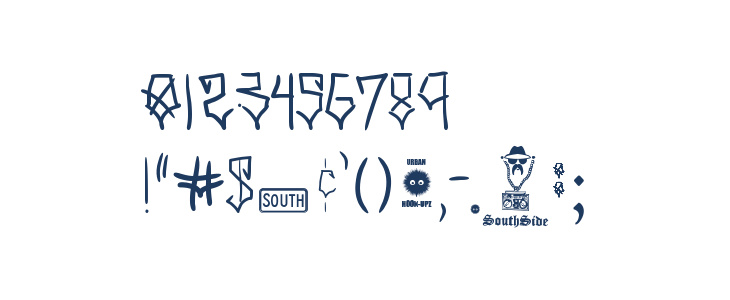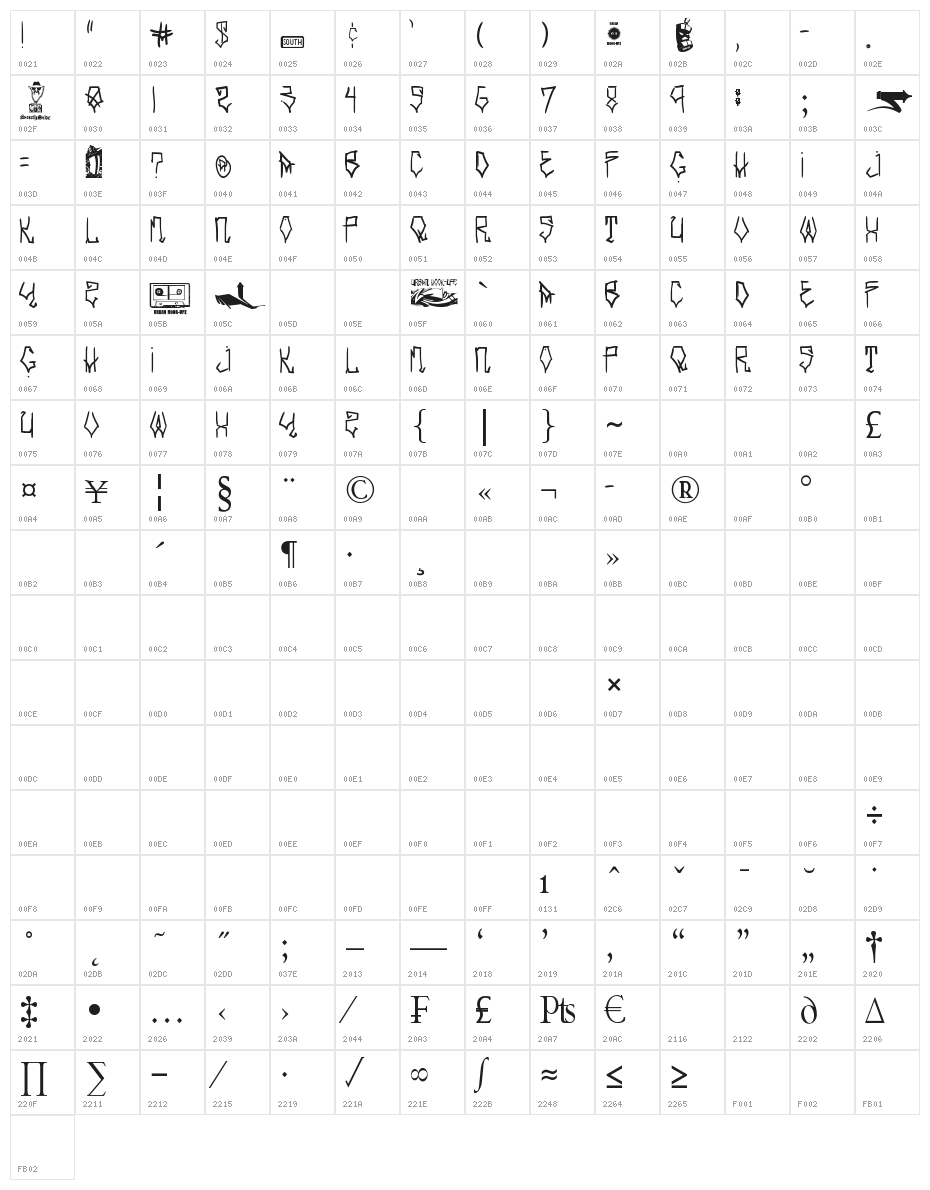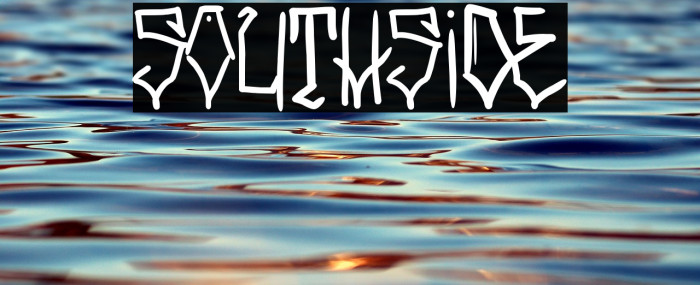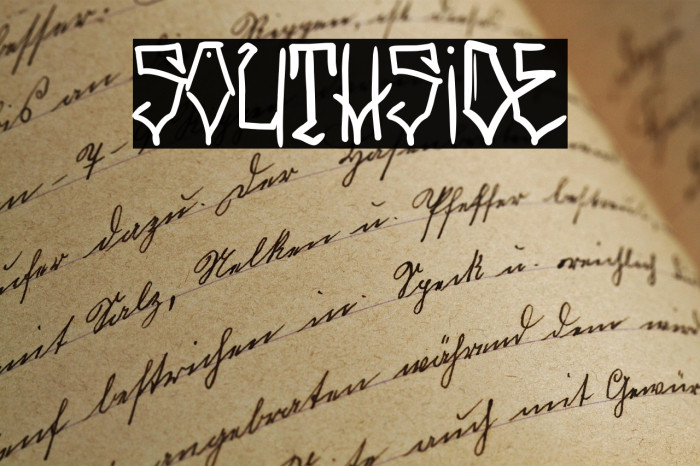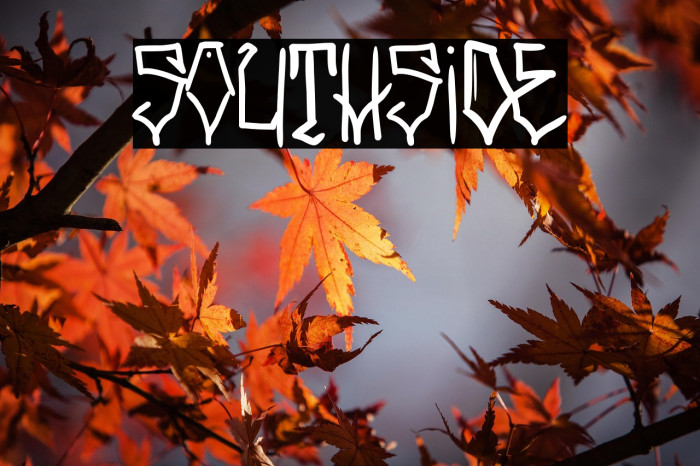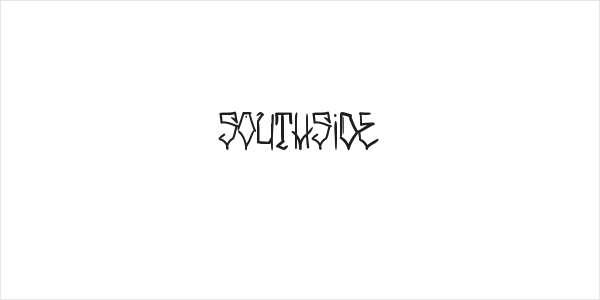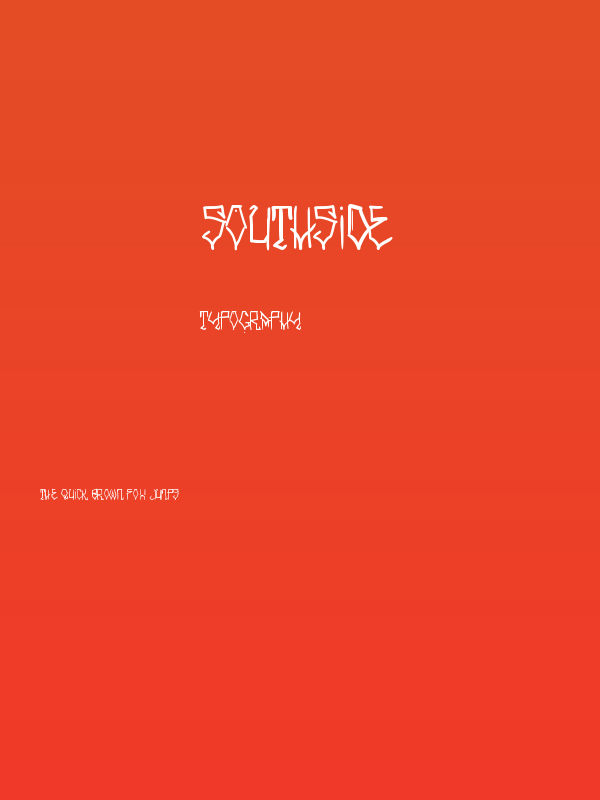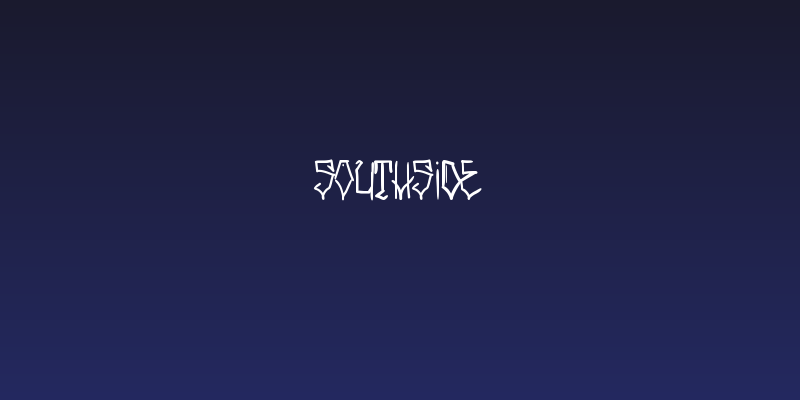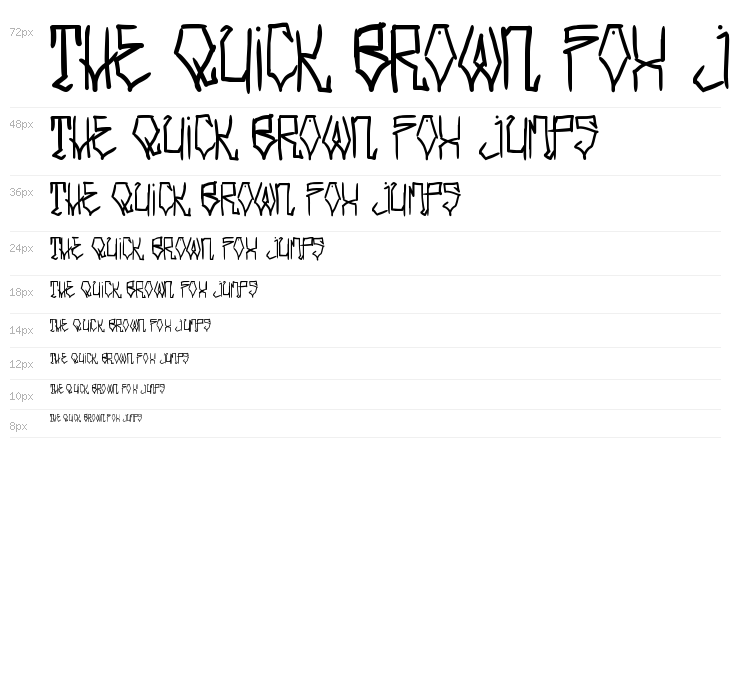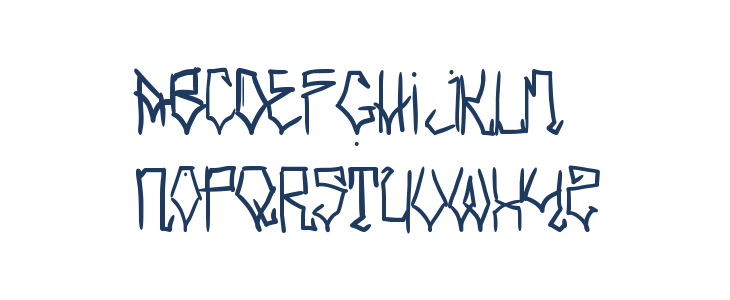
SOUTHSIDE Font
SOUTHSIDE Description
This font features a bold, graffiti-inspired style with angular, edgy letterforms that convey a sense of urban energy and rebelliousness. The characters are uniquely stylized with sharp angles and irregular shapes, giving them a dynamic and unconventional appearance. The uppercase and lowercase letters maintain a consistent aesthetic, while the numbers and special characters complement the overall design with similar boldness and creativity. This font is ideal for projects that aim to capture a street art vibe or an edgy, modern look.
Overall StyleModern, Urban, Edgy
Proposed ProjectsPerfect for street art designs, urban-themed posters, music album covers, and edgy branding projects.